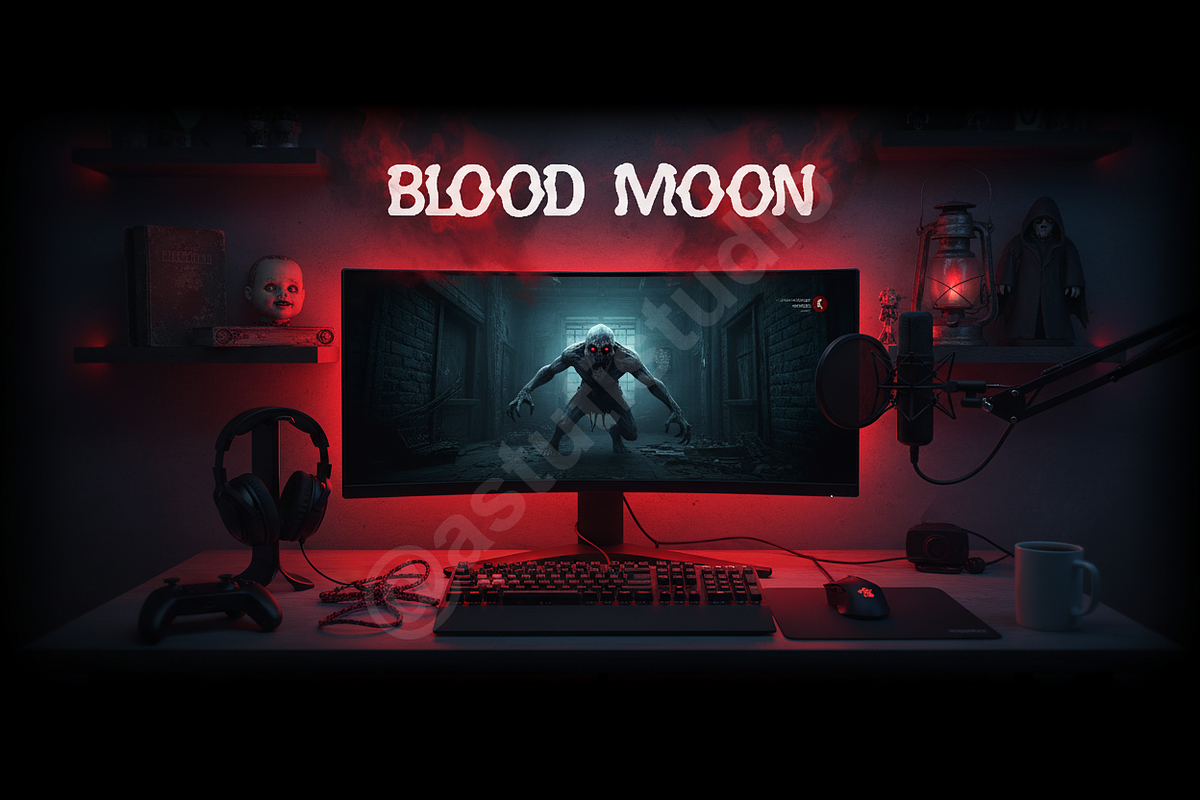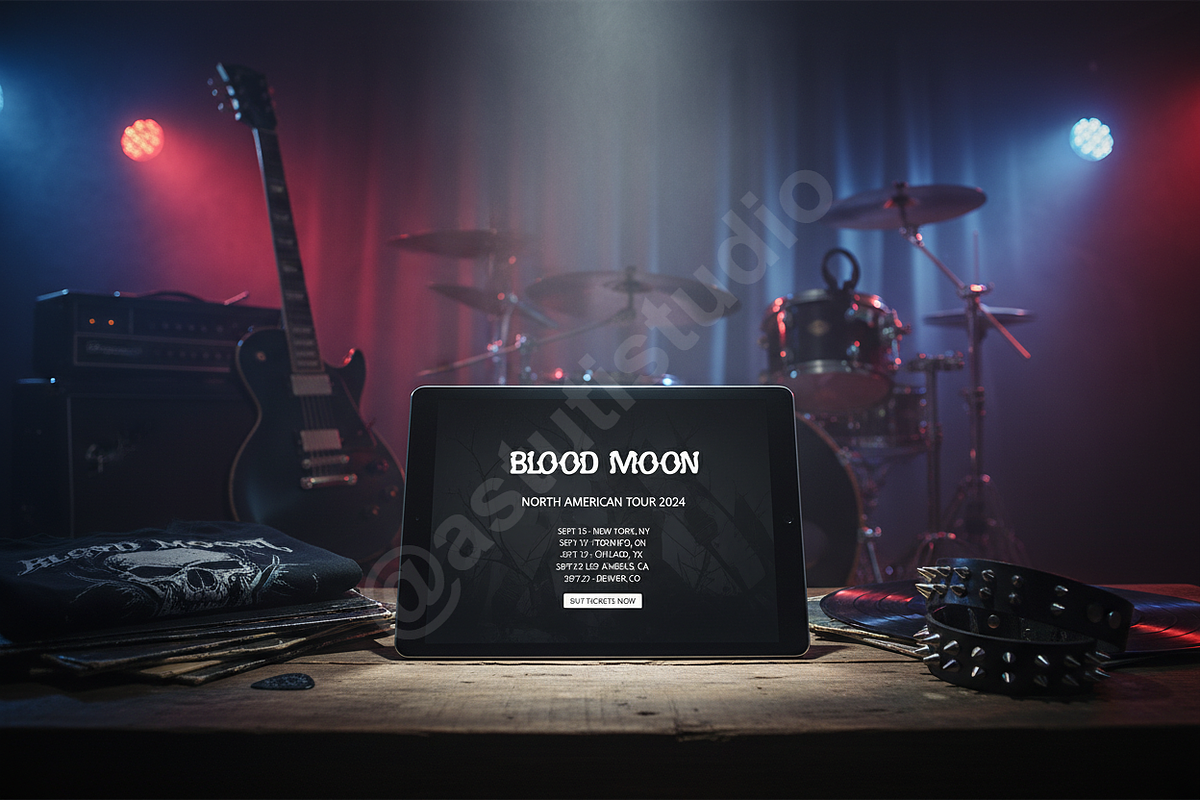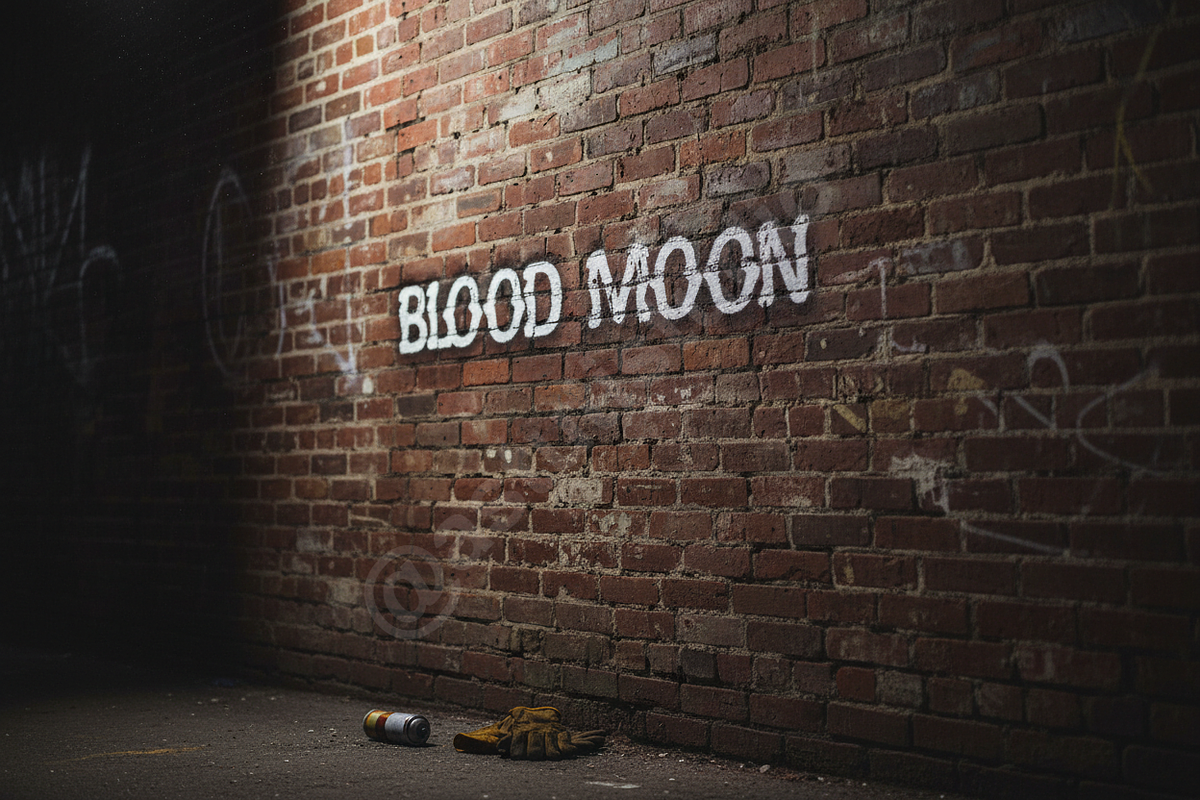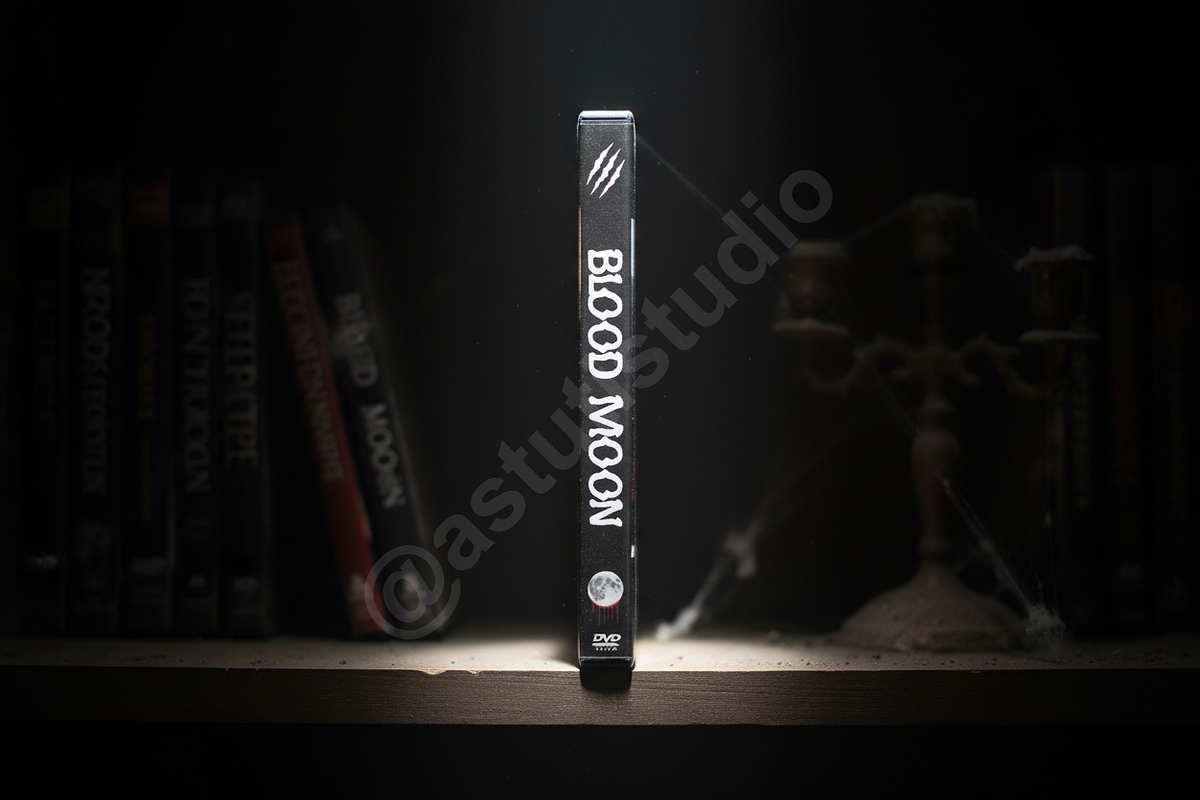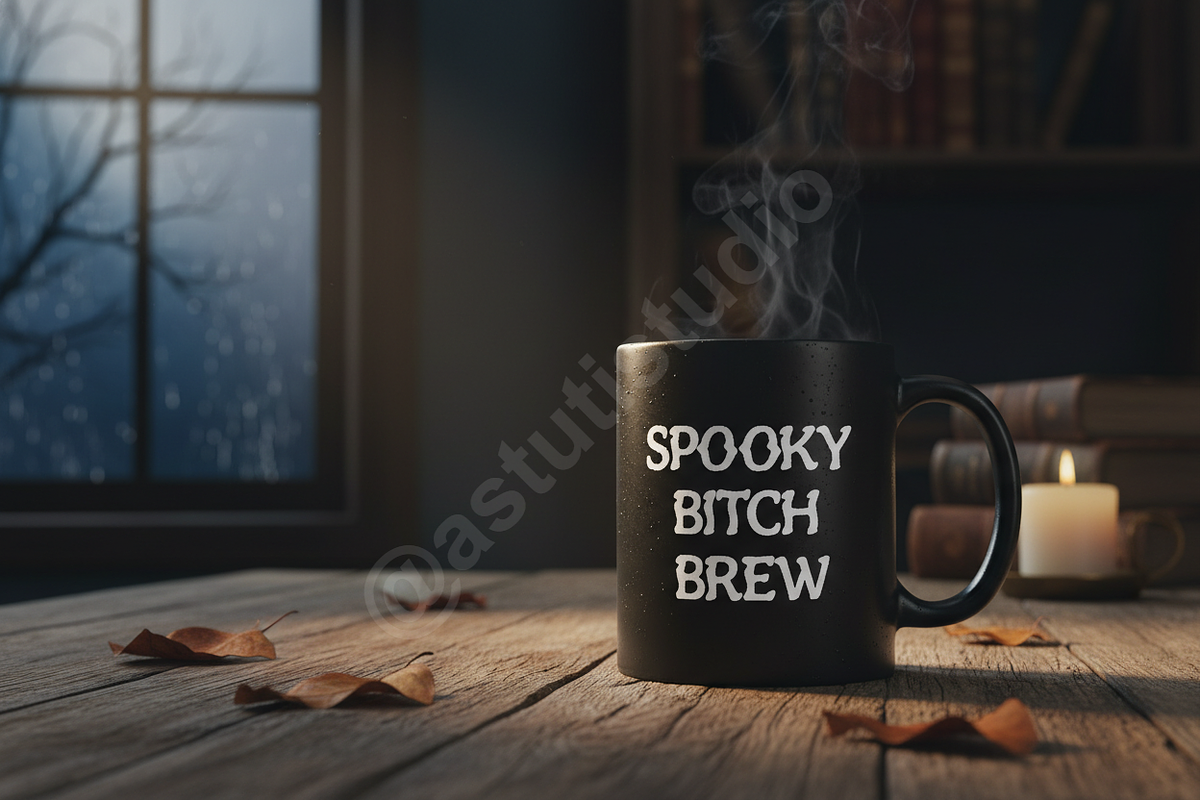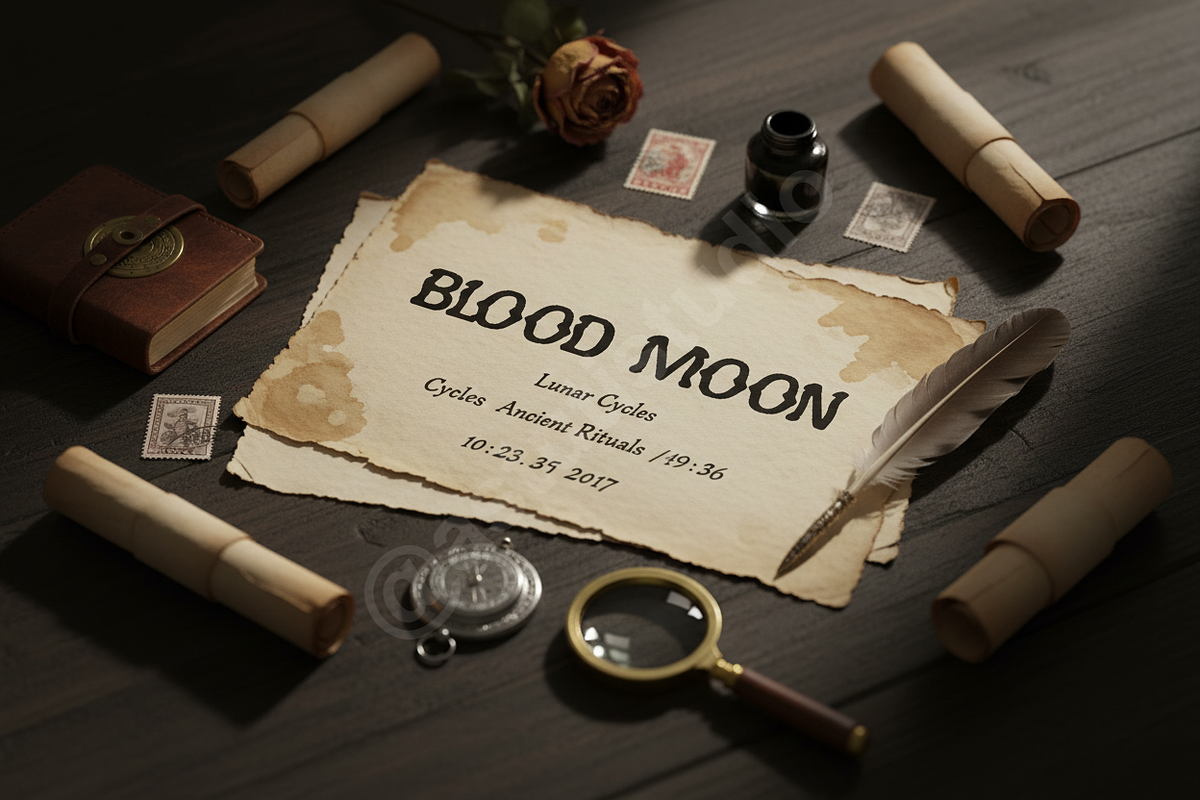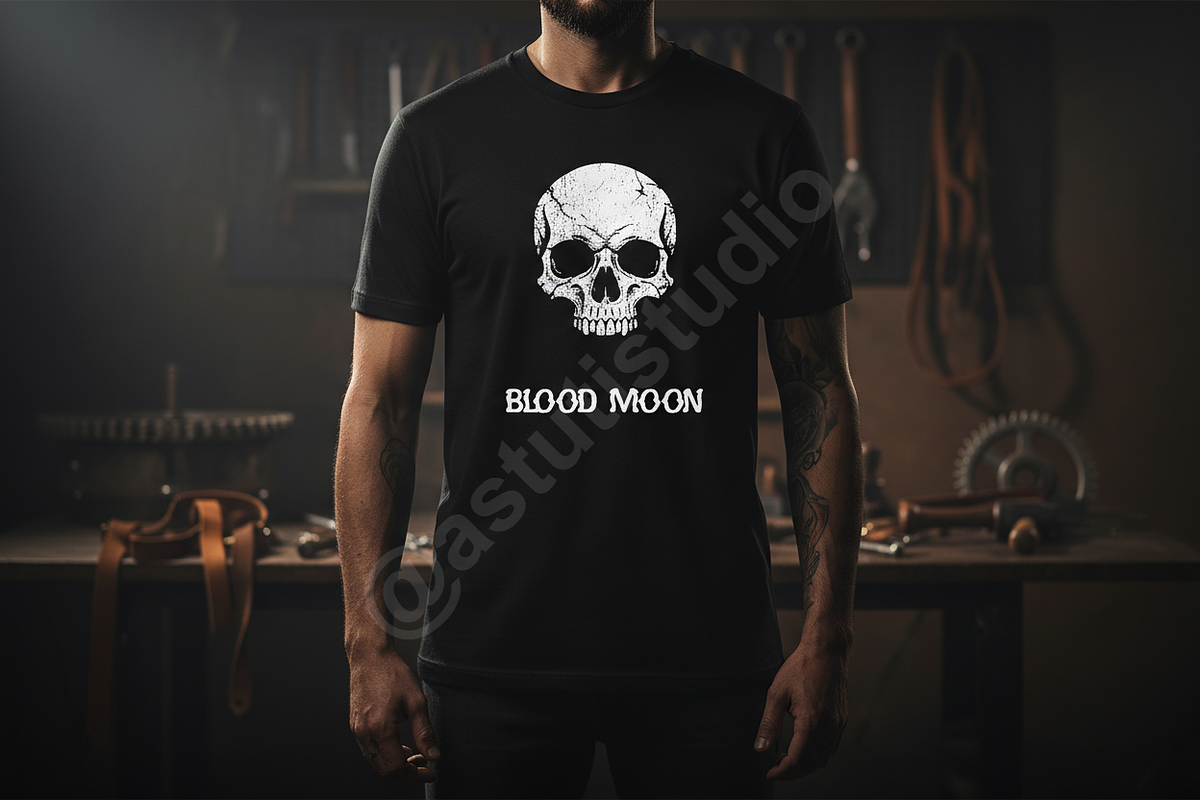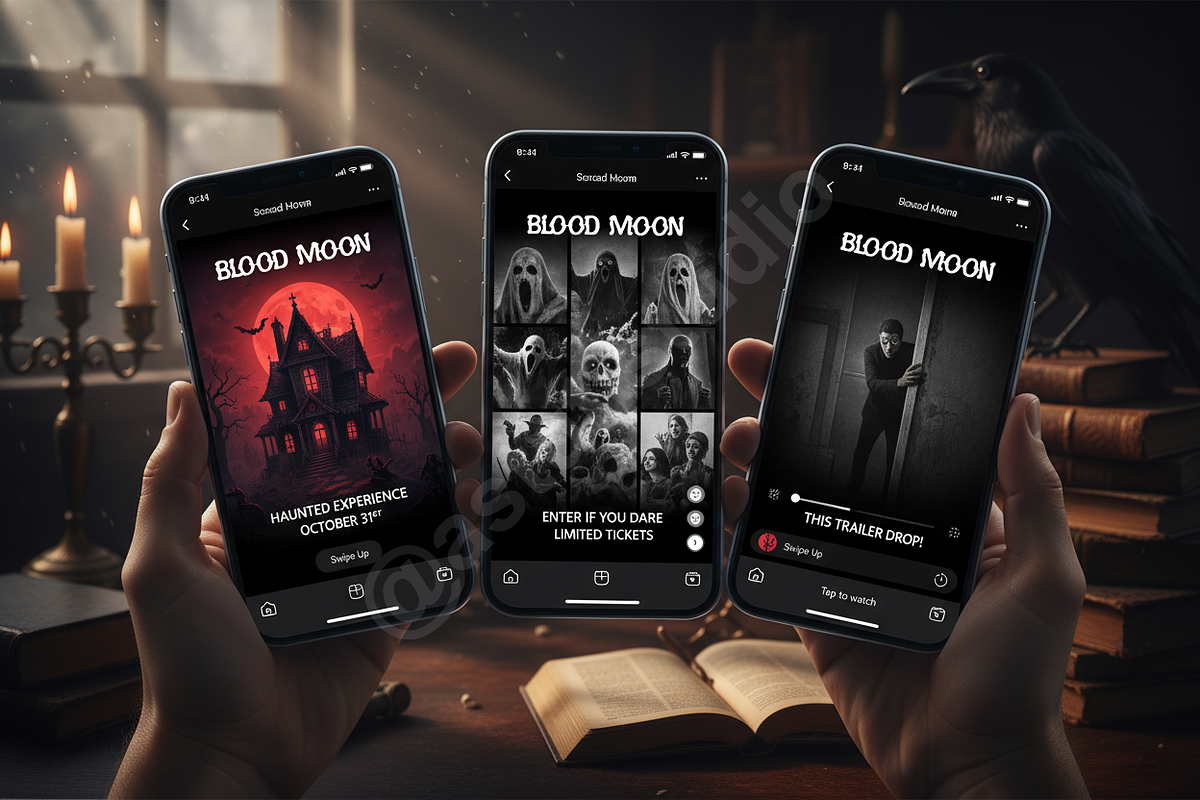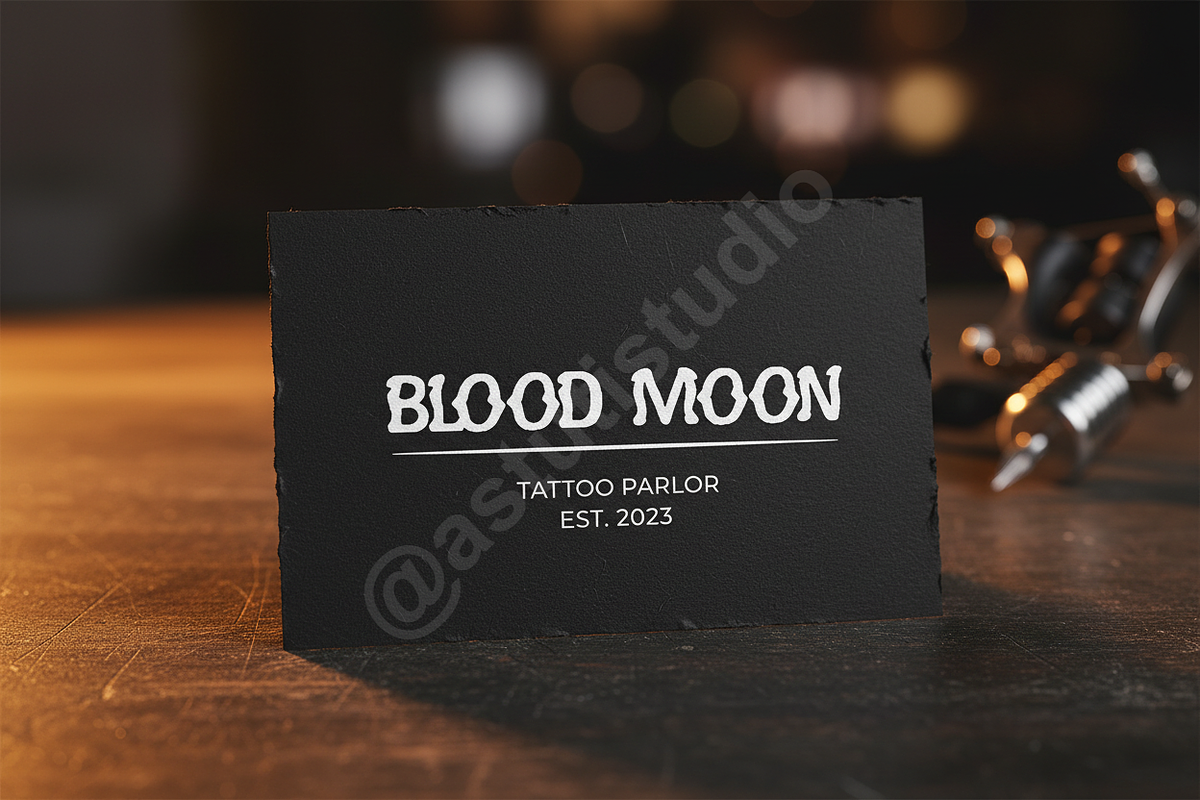
Fetu - Luxury Display Serif Font
Introduction: Fetu is a sophisticated and elegant display serif typeface, meticulously designed to elevate premium branding and high-end editorial projects. With its refined curves and precise details, Fetu exudes an air of timeless luxury, making it the perfect choice for captivating headlines, distinctive logos, and engaging social media visuals that demand attention and convey exclusivity.
- Exquisite Craftsmanship: Each character is carefully balanced for visual harmony and superior readability.
- Timeless Elegance: A classic serif with a modern twist, offering versatile application across diverse luxury sectors.
- Multilingual Support: Extensive character set supporting over 100 languages for global reach.
- OpenType Features: Includes standard ligatures and stylistic alternates to enhance typographic possibilities.
- Optimized for Digital & Print: Designed to perform flawlessly across both screen and high-resolution print applications.